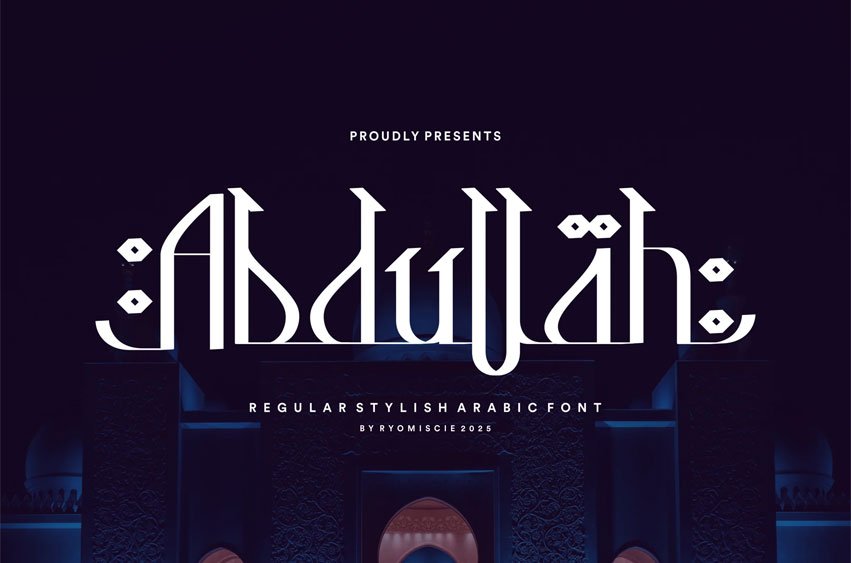
Abdullah Font Modern Font is a bold and authentic display font. The font is suitable for any branding project like logo, esport, and many more.
outstanding in a wide range of contexts.